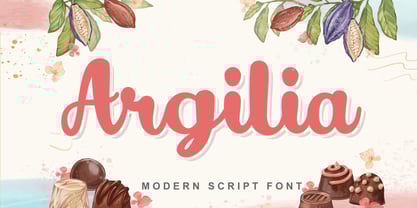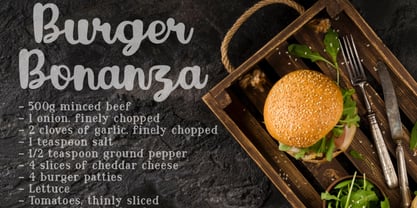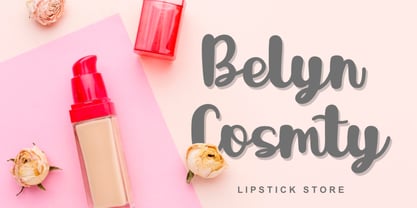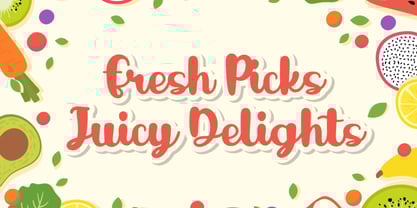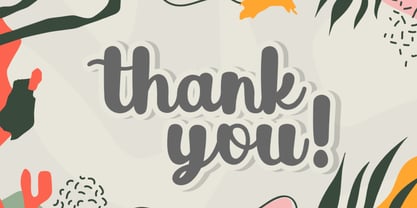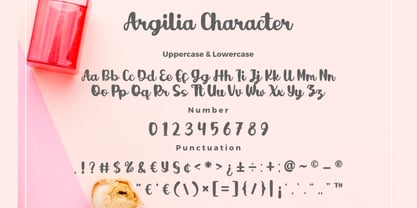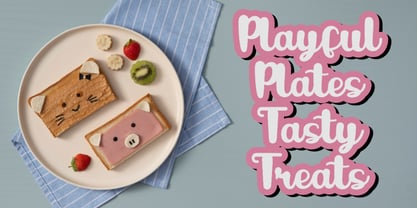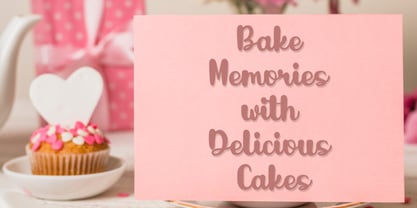
Argilia
by Bayuktx
The Argilia Font Family was designed by Bayu Aji Fais Mursid and published by Bayuktx. Argilia contains 1 styles. More about this family
Argilia a Modern Script Font, This font is made with a high premium quality level which you can use as flyers, quotes, posters, banners, packaging, merchandise, logotypes and much more.
FEATURES :
* Uppercase
* Lowercase
* Number
* Punctuation
* Multilingual
Designers: Bayu Aji Fais Mursid
Foundry: Bayuktx